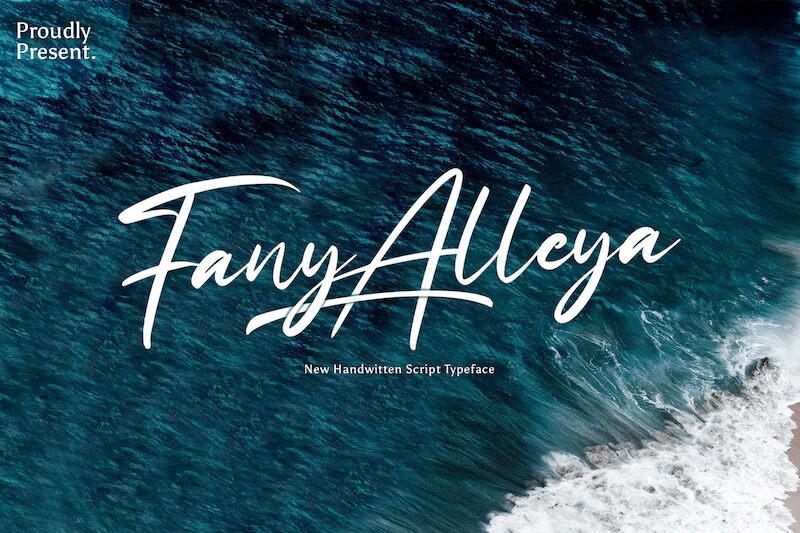
Fany Alleya is a stunning semi-light handwritten signature font from StringLabs. The elegant curves and flowing lines of this font make it perfect for wedding invitations, greeting cards, logos, and branding projects. Whether you’re creating a romantic wedding invitation or a chic logo for your fashion brand, Fany Alleya will add an extra touch of sophistication to your designs. With its unique style and attention to detail, this font is sure to impress. So why not give your next project the personal touch it deserves with Fany Alleya?